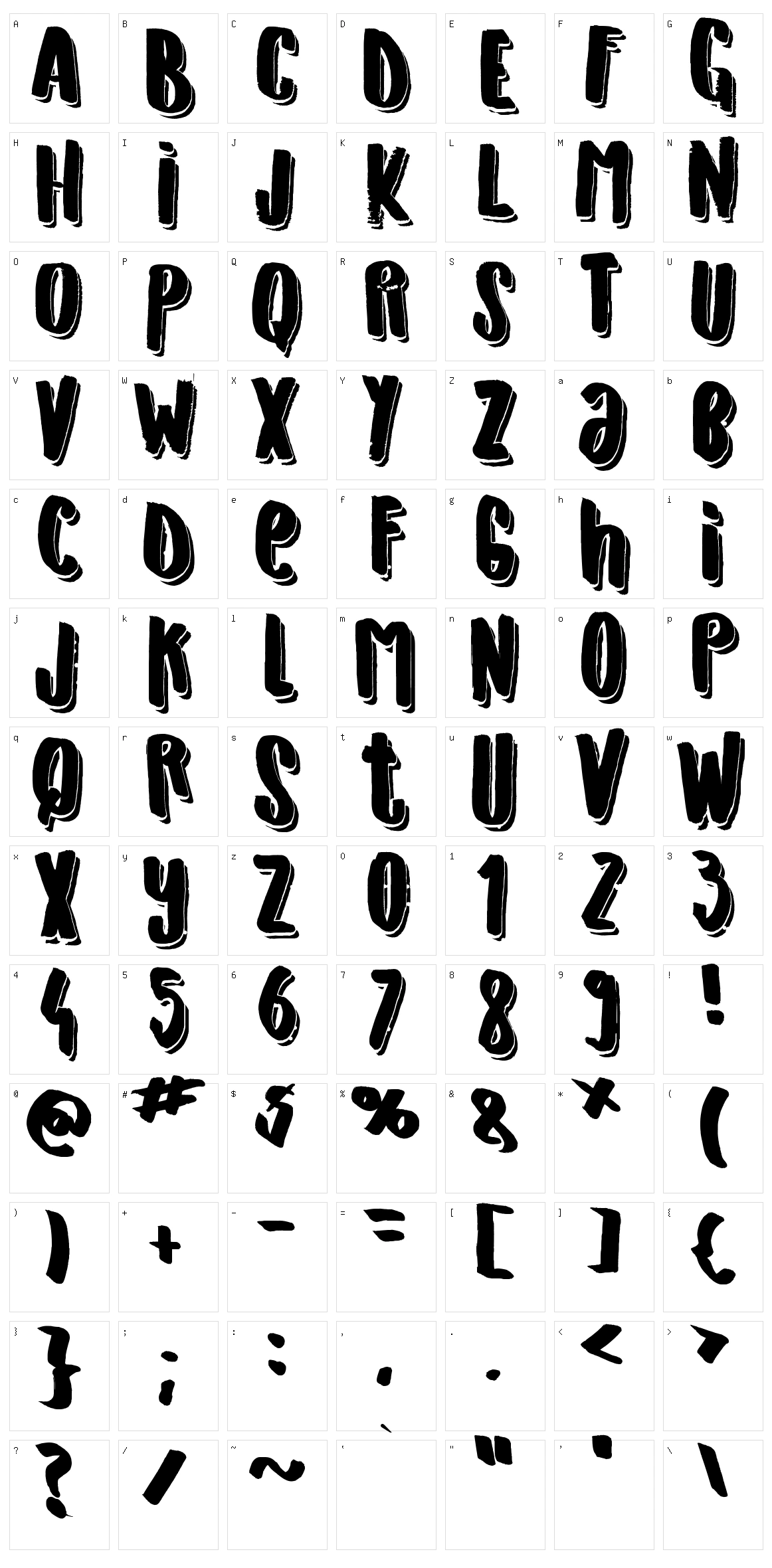
The free font Originals is Out is carefully designed by Leonard Posavec - LeoSupply.co, showcasing a thoughtful balance of creativity and usability and falls under the Cartoon font style. When you download the ZIP file, it contains only 78.62 KB of font files, making it lightweight and quick to download. Please review the license details below to understand permitted usage and distribution rights. If license information is not available, we recommend using this font for personal projects only or contacting the author directly for commercial usage permissions.